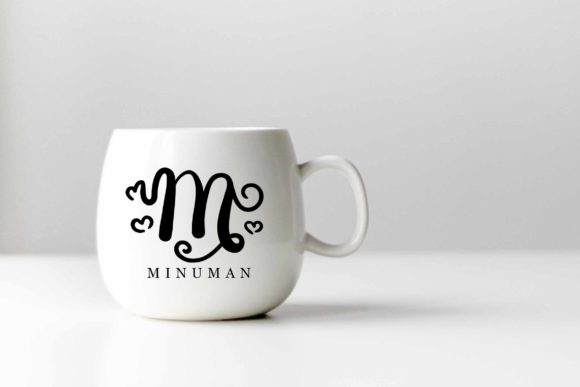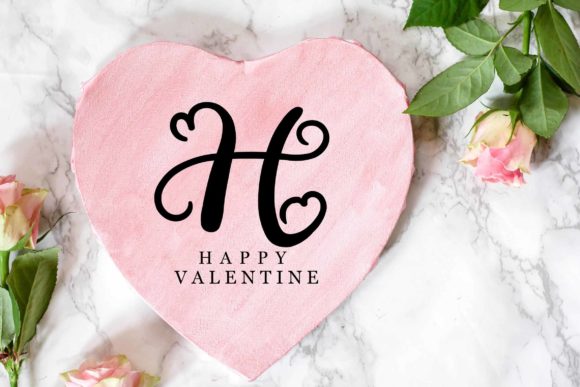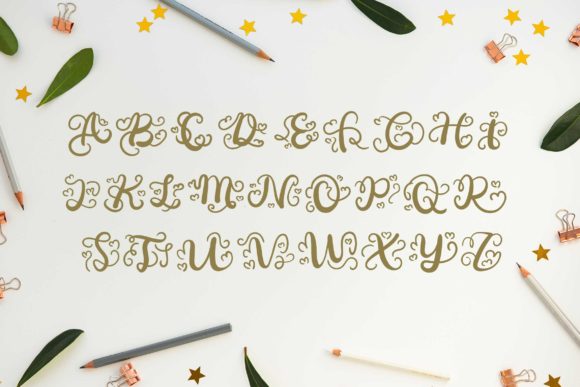
Introduction to Nisha Monogram Font
As you sit at your desk, surrounded by scattered papers and half-finished designs, the perfect idea suddenly strikes you. You envision a beautiful, elegant logo for a client’s wedding invitation, and you know exactly the font you want to use – the Nisha Monogram Font. This simple yet romantic decorative font is a treasure trove of creativity, waiting to elevate your next design project.
The Nisha Monogram Font is a high-quality design resource that offers a transparent background, making it perfect for use on any background or design element. Whether you’re a seasoned designer or just starting out, this font is an invaluable addition to your toolkit. With its versatility and charm, it’s no wonder designers are turning to the Nisha Monogram Font for their creative projects.
Key Features of Nisha Monogram Font
- High-quality design for a professional look, perfect for creative projects and personal branding.
- Monogram design with a unique, modern style, suitable for logos, business cards, and other branding materials.
Honest Review: Nisha Monogram Font
I recently stumbled upon the Nisha Monogram Font, and I must say, I’m quite impressed with its high quality design. This font is perfect for designers looking to add a touch of elegance to their creative projects. The transparent background allows for seamless integration into any design, making it a valuable resource for any project.
- ✨ High quality design that’s perfect for creative projects
- ✨ Transparent background for easy integration into any design
- ⚠️ Limited font styles and variations (only a few options available)
Overall, I think the Nisha Monogram Font is a great design resource for personal projects or small businesses. While it may have some limitations, its high quality design and transparent background make it a valuable addition to any designer’s toolkit. If you’re looking for a free download to spice up your creative project, this font is definitely worth checking out.
Common Use Cases for Nisha Monogram Font
The Nisha Monogram Font is perfect for:
Wedding invitations and stationery
Personalized gifts and cards
Branding and logo design